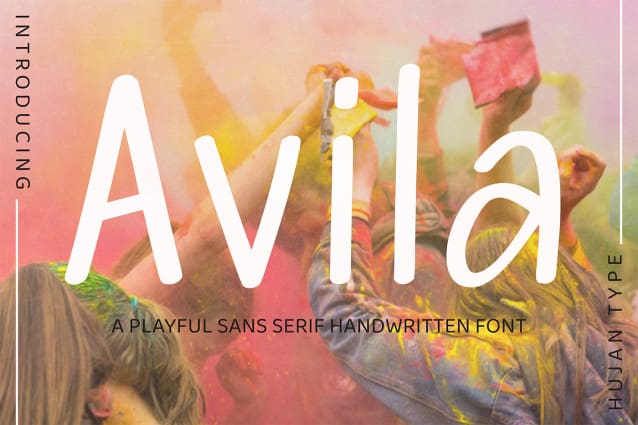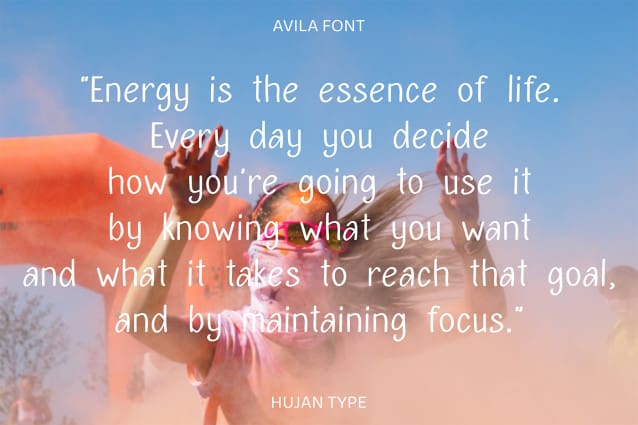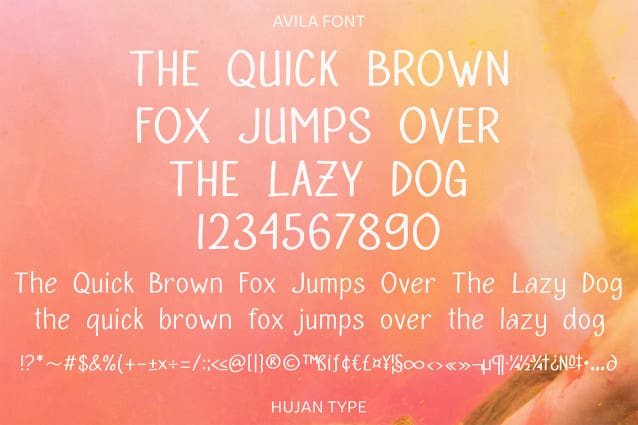
Avila Hand Font
Avila Hand Font a sans serif handwritten font are perfect for poster, social media post, advertisements, product packaging, product designs, labels, photography, watermarks, invitations, stationery, and any project that requires handwritten taste.